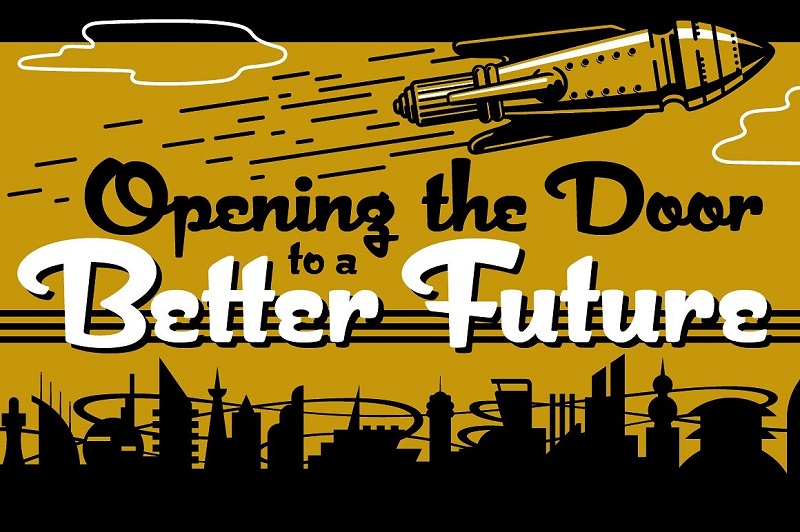
1960 Style Fonts
1960 Style Fonts. For prototypical uses published during the decade itself, see 1960s. For contemporary uses that emulate that era, see 1960s style.
20 Groovy 1960s Style Fonts for Your Vintage Projects
Examples Of Fonts In Use Tagged With “1960S Style”.
Uses Published In The 1960S That Are In Some Way Prototypical Of That Decade.
It Comes With Many Stylistic Alternates.